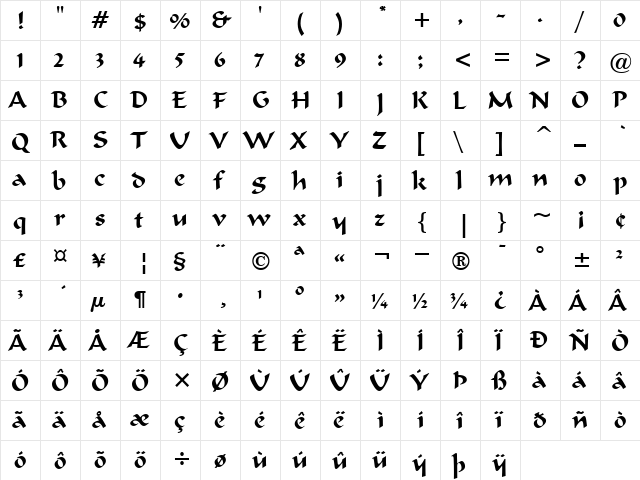
FormalScript421BT Regular
Design Context for FormalScript421BT Typeface
FormalScript421BT flows with the natural rhythm of handwritten lettering, making it ideal for designs that call for warmth and personal expression.
Font Pairing: Combine FormalScript421BT with a simple geometric sans for maximum contrast — the tension between flowing curves and clean structure is a classic typographic pairing.
Pro Tip: Use FormalScript421BT for short runs of text — names, titles, or taglines. Extended body copy in script faces tires the eye quickly.